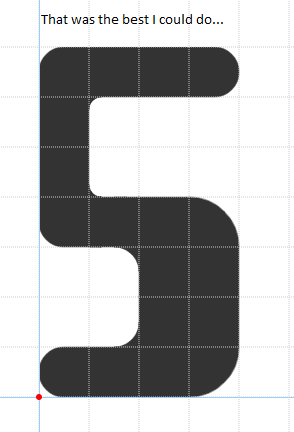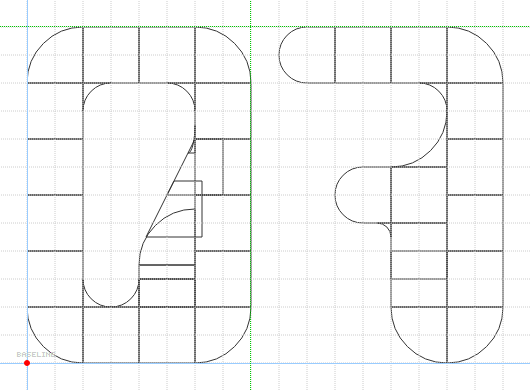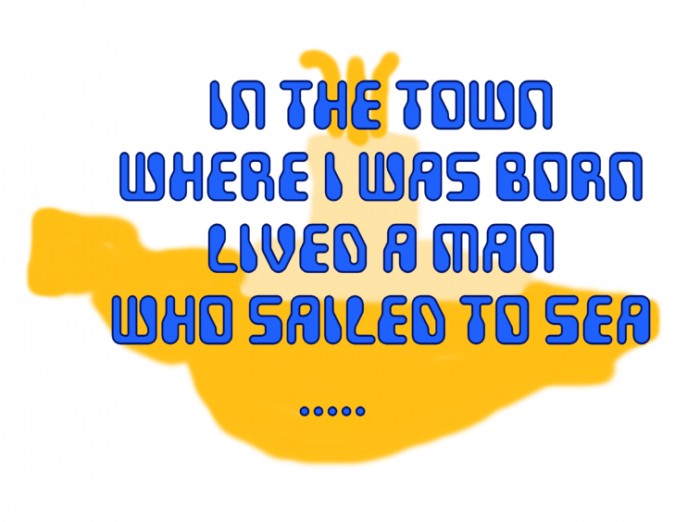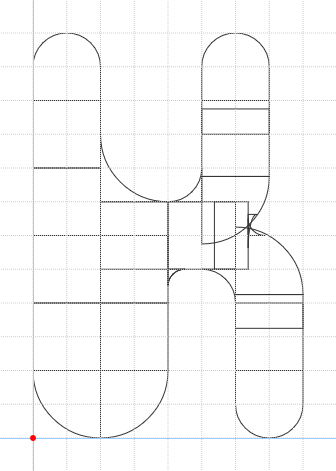
Nice Futuristic effect. 10/10
Nicey nice. I particularly love your diacritics.
Try a smaller curve on the top of 5.
@V. Sarela (Yautja) - Love this chunky '70s futuristic type of font.  Like you did with the Z and 2, I would reverse the Z to turn it into an S with a slanted angle to differentiate it from the 5.
Something like this?
Alternate 6 on ^
Alternate 7 on `
Alternate A on ~
@xXx Good suggestion, but I haven't used smaller curves anywhere else on full-size characters, so I'll pass.
@Goatmeal: I was considering that, I changed the uppercase S to it. Thanks.
How did you do the smooth curves on certain characters (like 0, 7, etc.)
On your alt. 7...
Cool font! But without the Cyrillic alphabet :( Really cool, but especially I love OCR fonts(bad cyrillic) with no contrast.
As for the '5', I suggested in this font to tilt the horizontal stem to the right, since this is a more typical, common form (you can see it in my fonts by the Sychoff tag).
Thanks Sychoff and Aeolien. I'm not familiar enough with Cyrillics to add them, though maybe I could give it a try for this font...
Added Russian Cyrillic, hope it's good.
а and я  look similar to each other... Maybe flipping а...
the bottom of а*
Cool if you really want to try cyrillic, I can help with references: this and this have not really good cyrillic so better try forms from this or any other of my fonts. Good luck!
P.S.: I hope you do not mind that I made cyrillic extension of your font Devico?
Looks good to me—the Cyrillic, I mean. I agree about ya looking to similar to a, but given your design, I cannot think of how I would correct it.
@TCWhite: The personal researches of the font of the Cyrillic alphabet readability are still going on. But the graphemes are long established, so many experiments with letter forms by non-Cyrillic designers are not very successful.
And in Russia, a lot of fonts are made not by designers, but by enthusiasts (often programmers and translators), so do not go for their design. Often, they make fonts as easier, not as better. I'm also an enthusiast, but I'm trying to learn a font design and do the best I can.
I have the same concern about the (very) low-res Latin characters. Keep up maintaining the right/known glyphs above all (I'm not a Cyrillic user…).
Great! How did you double the size of the quarter circles? I'm making a 'party ripoff' of this font.
@Hensilly: by changing the filters (enable Expert Mode and press F).
Whoa, there! How did you make that pinch on K and others?